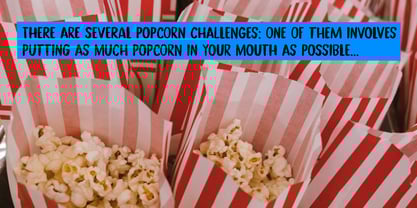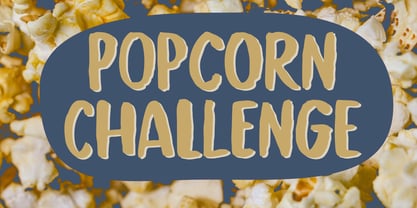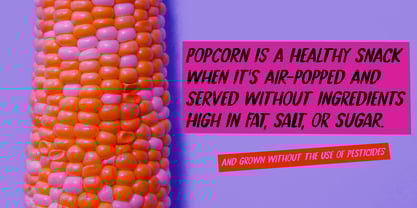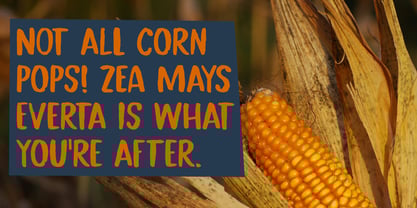
Popcorn Challenge
by Hanoded
The Popcorn Challenge Font Family was designed by David Kerkhoff and published by Hanoded. Popcorn Challenge contains 2 styles and family package options. More about this family
My kids like popcorn, We use organic corn kernels and pop them in a special popping pan, adding some salt or some syrup. We never buy the microwave popcorn as we suspect it has been genetically modified and/or heavily processed. We don’t really eat a lot of the stuff, as it is primarily an American snack and hasn’t really seeped into our culture.
Popcorn Challenge is a font I made with a horse-hair brush and Chinese ink. It comes with extensive language support and a set of alternates for the lower case glyphs.
Designers: David Kerkhoff
Foundry: Hanoded
About Hanoded
Hanoded is run by Dutchman David Kerkhoff. His fonts are a mishmash of styles, as he just creates whatever pops into his head. You will find a lot of brush fonts in his collection, as his favourite tools are brushes and Chinese ink, with cartoon style fonts and script fonts complementing his repertoire. Aside from making fonts, David occasionally guides tours in far-flung places, renovates his '30's house and tries reasoning with his wife and (teenage) kids. Not an easy task!